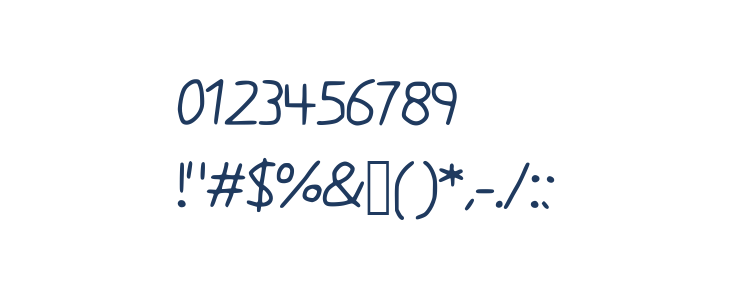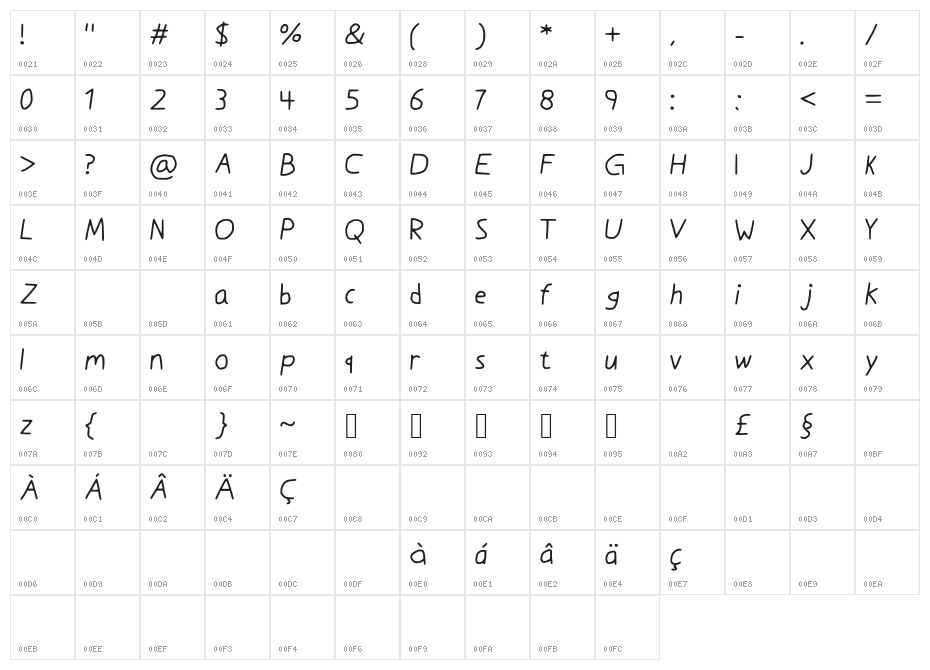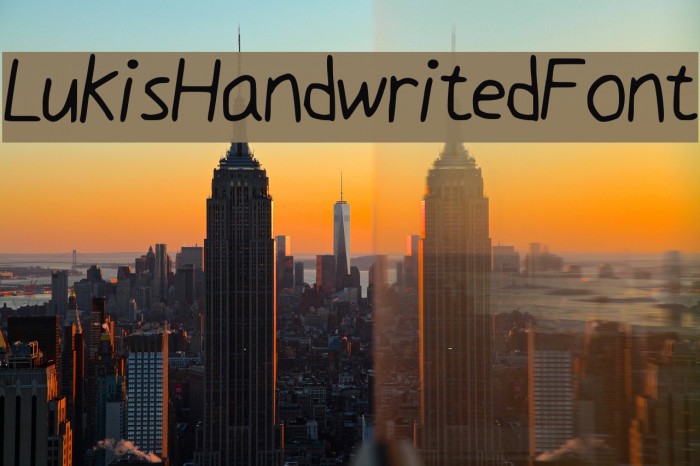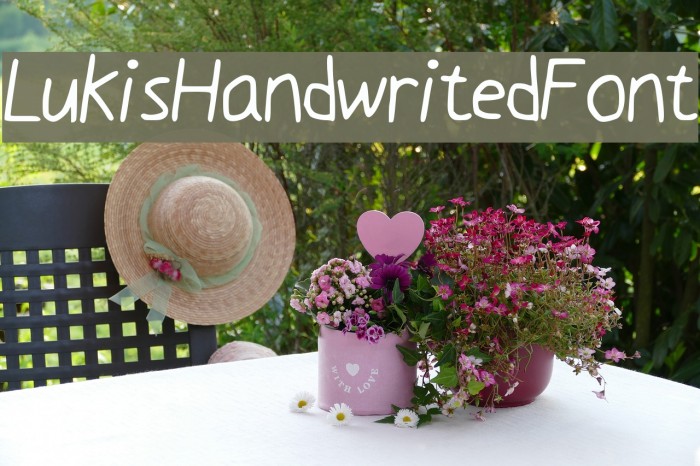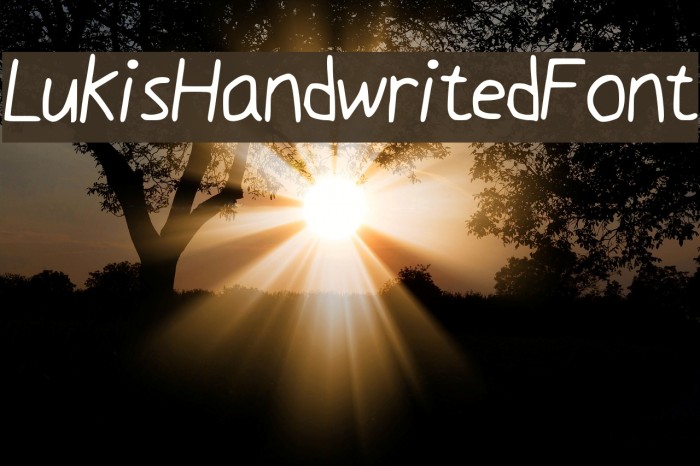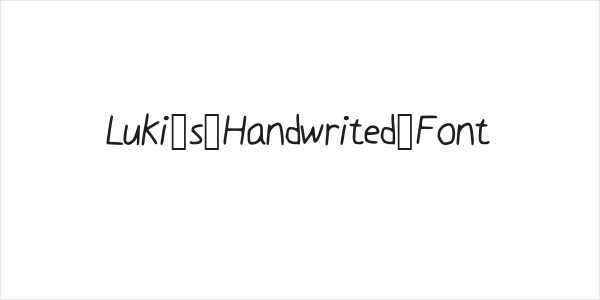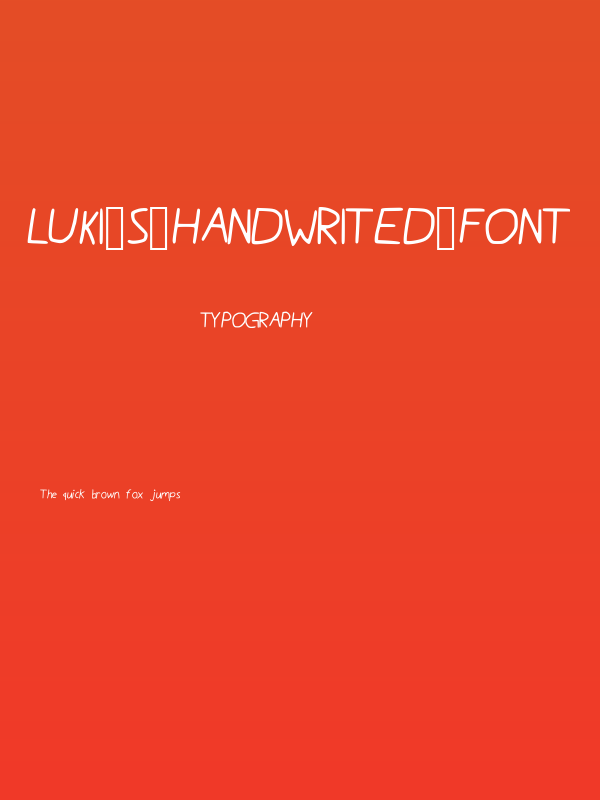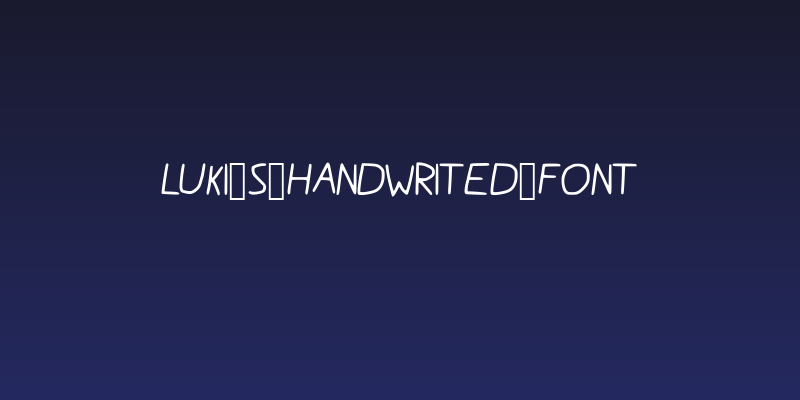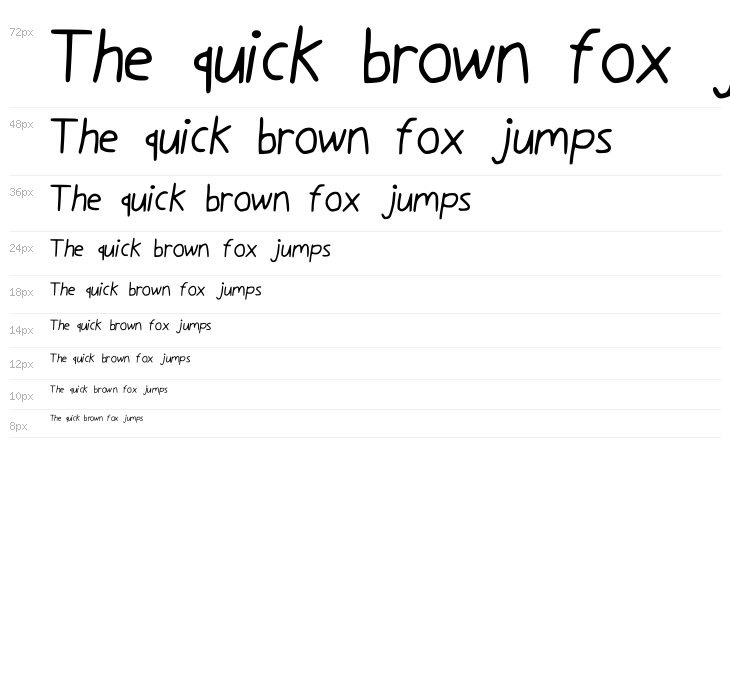
Luki_s_Handwrited_Font Font
Luki_s_Handwrited_Font Description
This font exudes a casual and friendly vibe, reminiscent of natural handwriting. The characters are slightly rounded with a consistent stroke width, giving it an approachable and informal appearance. The uppercase letters maintain a uniform height, while the lowercase letters exhibit a playful bounce, adding to its charm. Numbers and special characters are clearly legible, maintaining the font's overall cohesive style. This font is perfect for projects that require a personal touch, such as invitations, greeting cards, or casual branding.
| Use Case | Headlines, Informal text, Personal projects |
| Proposed Projects | Ideal for invitations, greeting cards, personal branding, and informal communications. |